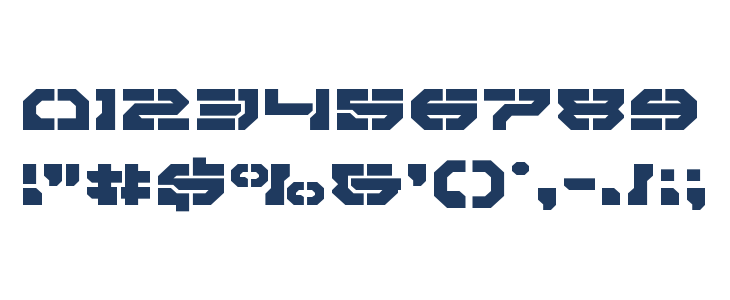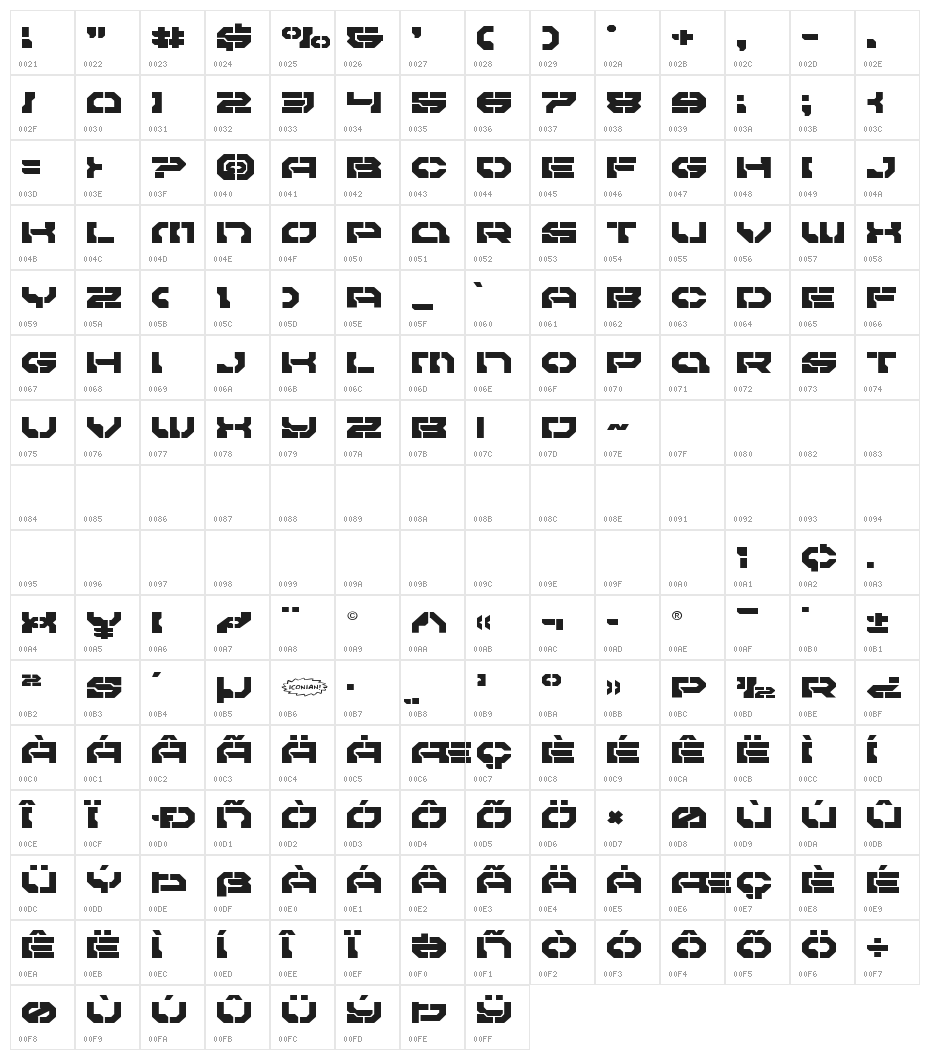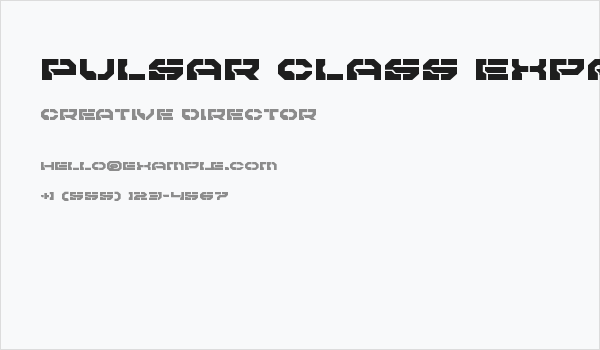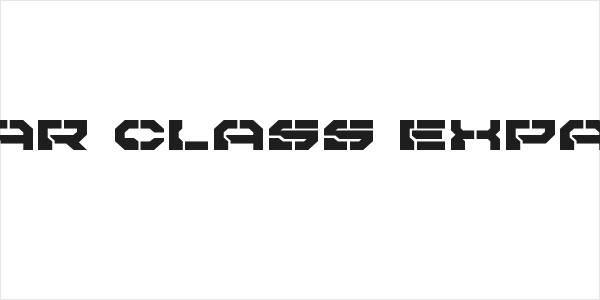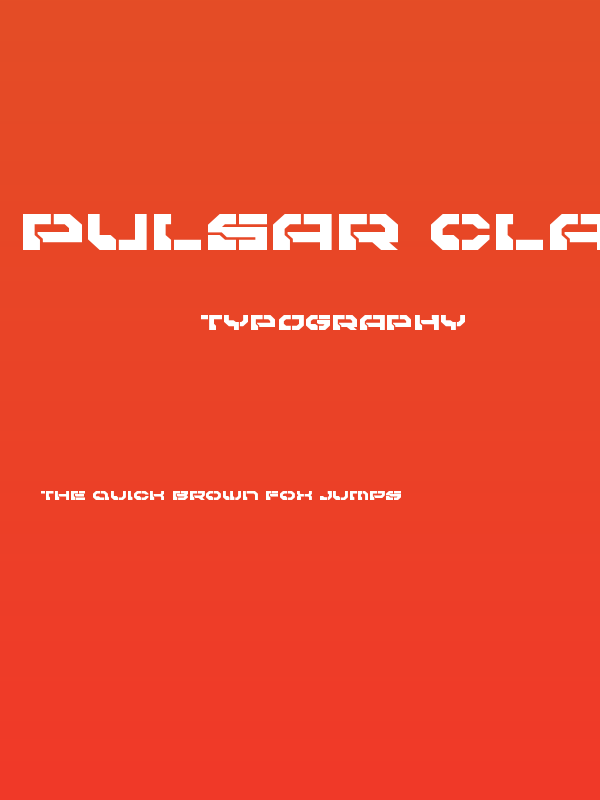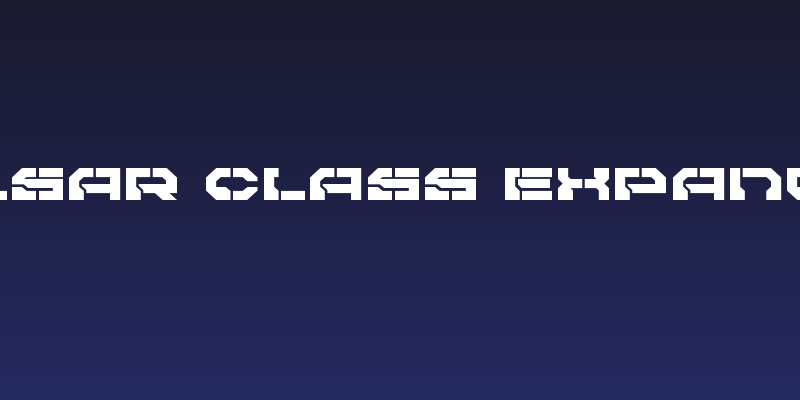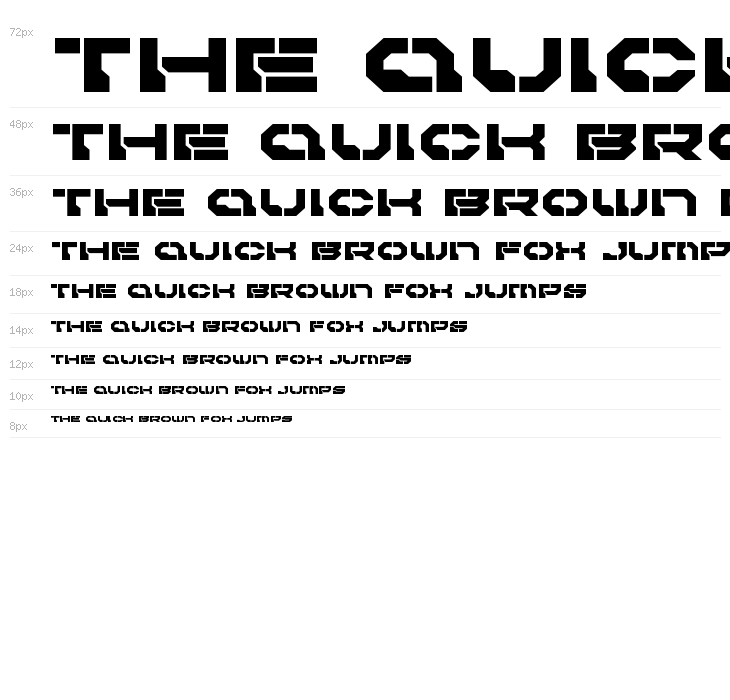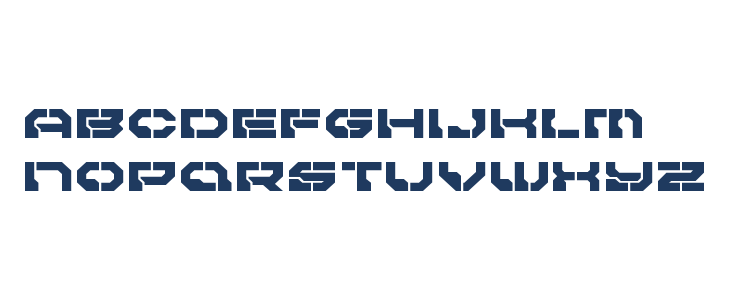
Pulsar Class Expanded Font
Pulsar Class Expanded Description
This font features a bold, geometric design with a futuristic aesthetic. The characters are constructed with sharp angles and straight lines, giving it a distinct, mechanical appearance. The uppercase and lowercase letters maintain a consistent style, with each character exhibiting a unique, angular form. The numbers and special characters follow the same design principles, ensuring uniformity across the font. Its expanded width allows for a strong visual impact, making it suitable for attention-grabbing headlines or display purposes. The font's high contrast in stroke thickness adds to its dynamic and modern feel.
| Overall Style | Futuristic, Mechanical |
| Use Case | Headlines, Logos, Display text |
| Proposed Projects | Ideal for sci-fi themed projects, technology branding, video game titles, and futuristic posters. |